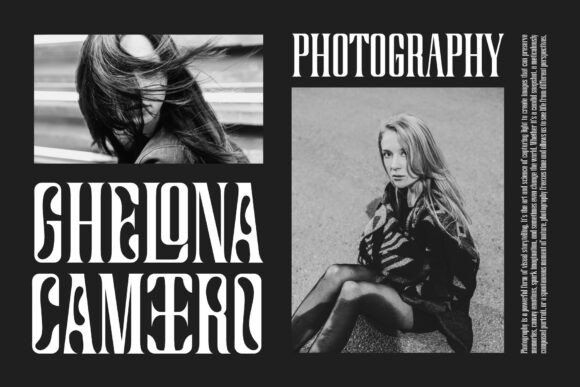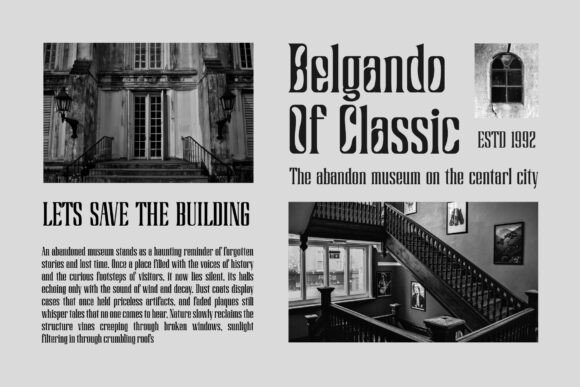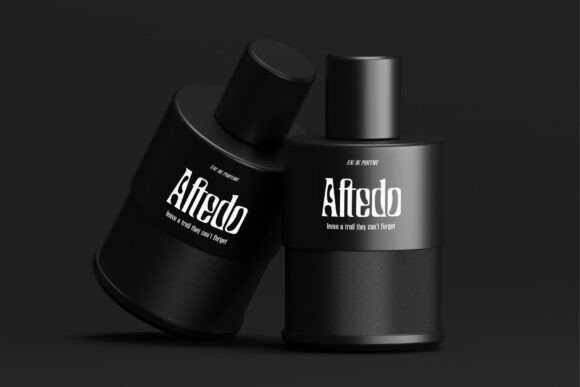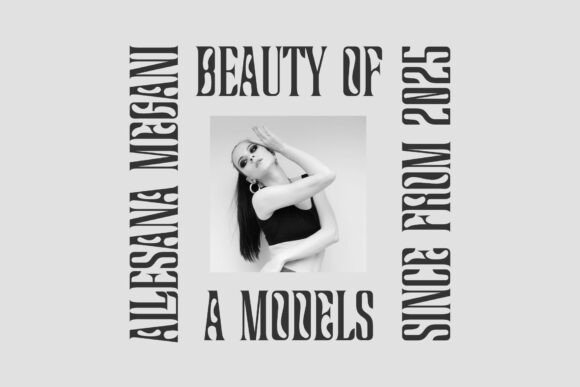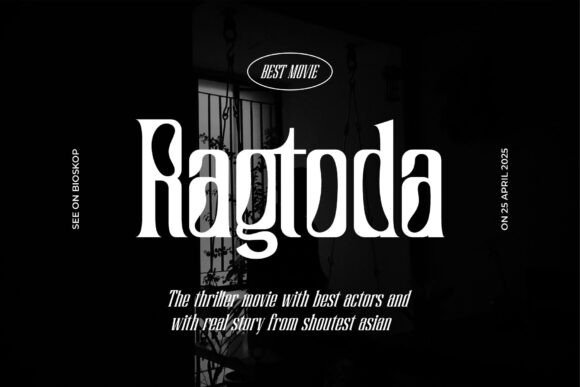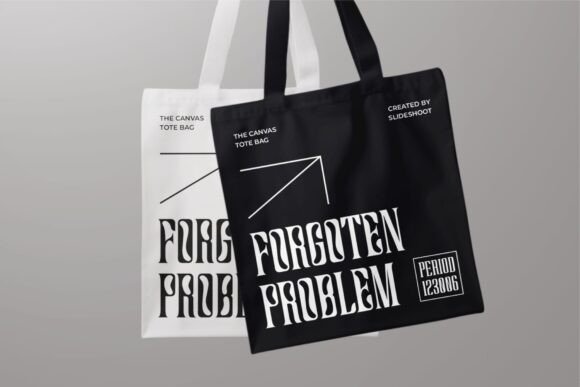
Introducing Dafthello: The Timeless Serif Font for Elegant Designs
In the world of typography, a font can make all the difference in the aesthetic and effectiveness of a design. For designers and crafters looking for a classic yet trendy font to elevate their projects, look no further than Dafthello. This elegant serif font is not only stylish but also versatile, making it perfect for a wide range of applications.
The Unique Character of Dafthello
Dafthello boasts a unique character that sets it apart from other serif fonts. Its classic design ensures a timeless appeal, while its trendy elements make it suitable for modern designs. The font’s elegance is evident in its clean lines, balanced proportions, and sophisticated feel. Whether you’re working on a traditional project or something more contemporary, Dafthello’s unique character will add a touch of class and sophistication.
One of the standout features of Dafthello is its versatility. This font is perfect for a multitude of design projects, including:
- Invitation Card Designs: Add a touch of elegance to your invitations with Dafthello’s sophisticated and refined look.
- Company Logos: Establish your brand’s identity with a logo that exudes professionalism and style.
- Movie Titles and Names: Give your film a classic and memorable title that stands out.
- Business Cards: Make a lasting impression with business cards that feature a clean and elegant font.
- Book Titles: Bring your book to life with a title that captures the essence of your story.
- Brand Names: Create a strong brand identity with a font that is both stylish and legible.
Why Choose Dafthello?
With so many fonts available, why choose Dafthello? Here are just a few reasons why designers and crafters are gravitating towards this elegant serif font:
- Timeless Appeal: Dafthello’s classic design ensures it will never go out of style.
- Versatility: Use Dafthello for a wide range of projects, from traditional to modern designs.
- Elegance: Add a touch of sophistication to your designs with Dafthello’s refined look.
- Legibility: Dafthello’s clear and balanced design makes it easy to read, even at small sizes.
Tips for Using Dafthello in Your Designs
To get the most out of Dafthello, here are a few tips for incorporating it into your designs:
- Pair with Other Fonts: Experiment with pairing Dafthello with other fonts to create a unique and visually appealing design.
- Play with Sizes: Use different sizes of Dafthello to create hierarchy and emphasis in your design.
- Experiment with Colors: Try Dafthello in different colors to find the perfect match for your brand or design.
In conclusion, Dafthello is a versatile and elegant serif font that is perfect for designers and crafters looking to elevate their projects. With its unique character, timeless appeal, and versatility, Dafthello is sure to become a go-to font for a wide range of design applications. Whether you’re working on a traditional or modern design, Dafthello is the perfect choice for adding a touch of sophistication and style.